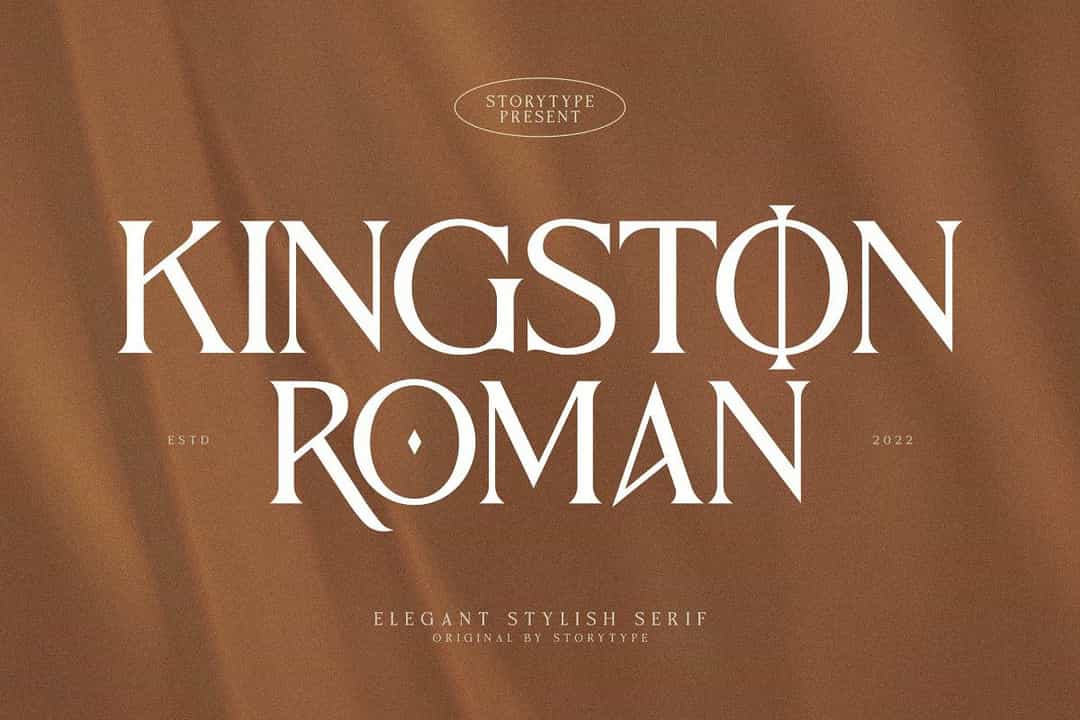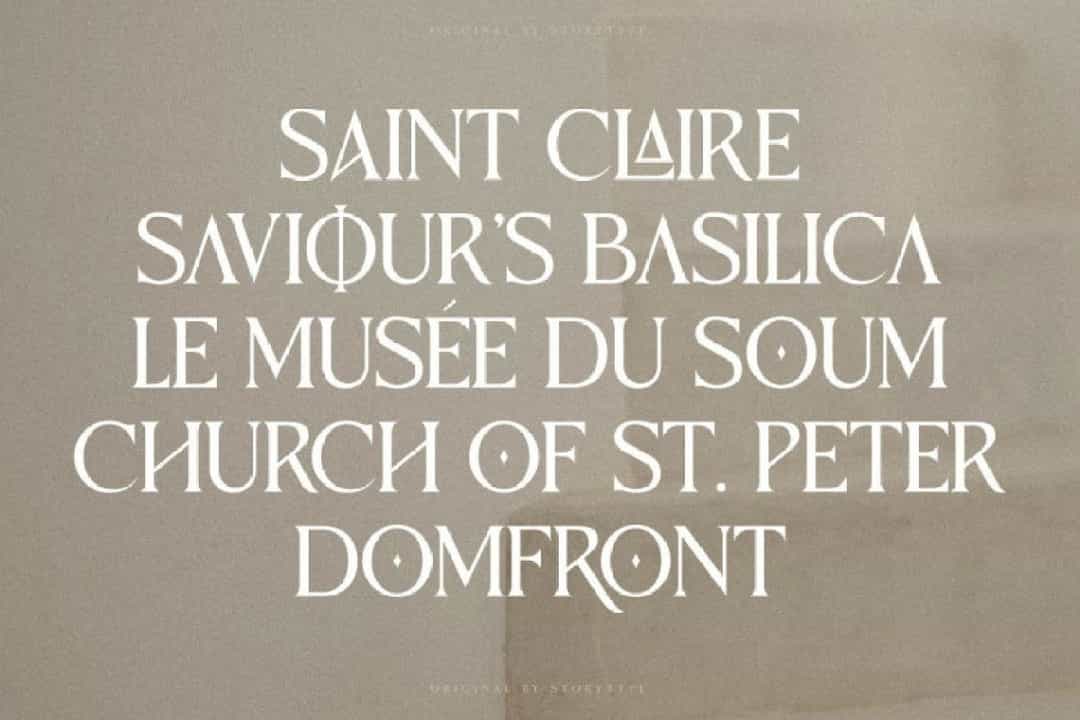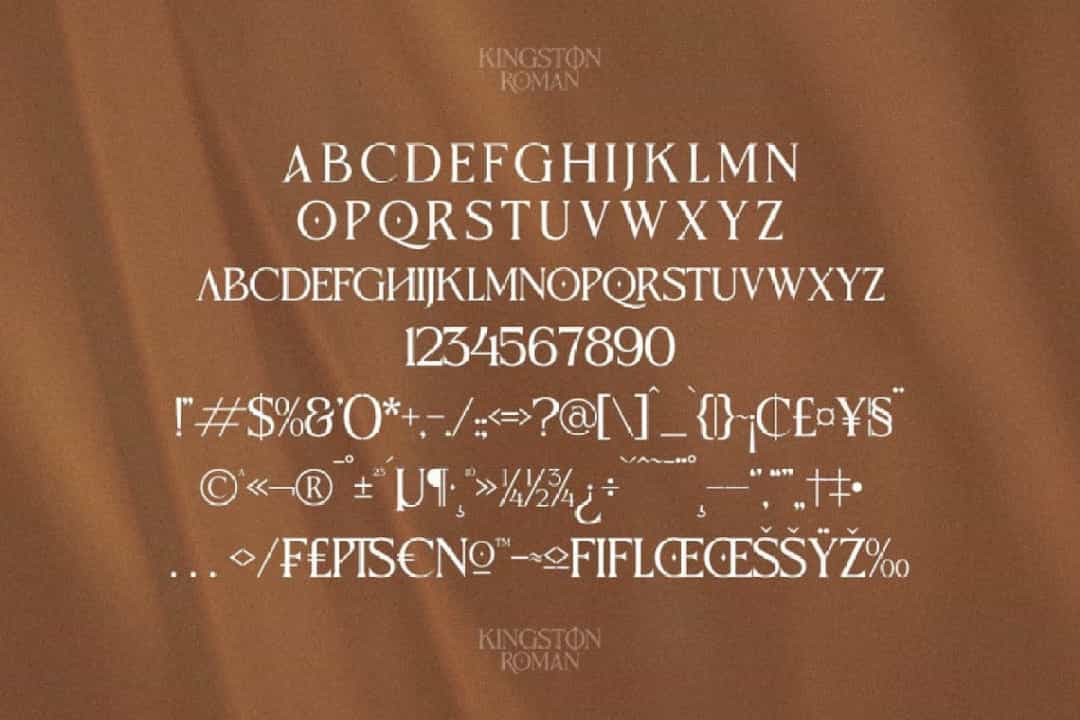
Kingston Roman is an elegant and timeless serif typeface with an understated and chic appearance, making it the ideal choice for creating classy logos, movie or book name designs, fashion brand magazines, clothing letters and quotes – among many other uses.